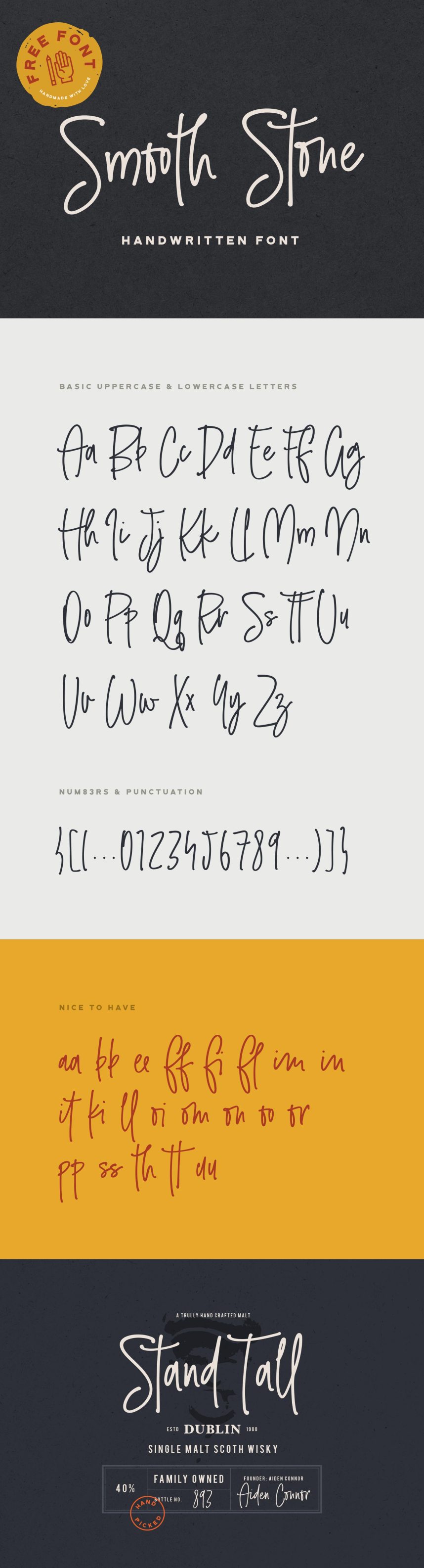
Smooth Stone Script Font
Smooth Stone Free Handwritten Font
This font is especially for you if you need to add tenderness to your project. SmoothStone was designed and shares by Vlad Cristea. It has a smooth edge and it’s quite tall in comparison with other handwritten fonts. You will love to use it in narrow spaces in your future design projects. Smooth Stone is perfect for photography, watermark, social media posts, advertisements, logos & branding, invitation, product designs, label, stationery, wedding designs, product packaging, special events or anything that need handwriting taste. Smooth Stone comes with upper and lowercase basic characters, numerals, punctuations and some special ligatures.